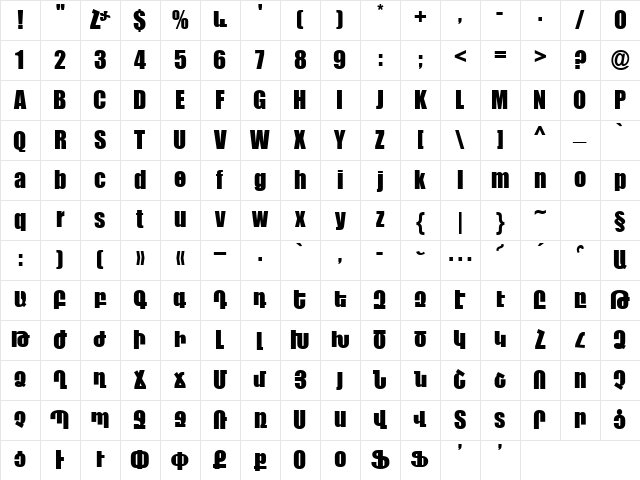
Complete ArTarumianMHarvats Regular glyph index. Displaying only characters natively supported by ArTarumianMHarvats Regular font.
ArTarumianMHarvats is a composed and adaptable typeface that performs quietly and consistently across a wide range of design contexts.